I can’t help but get excited about robot fonts. There’s something absolutely captivating about the way these futuristic typefaces can instantly transport your designs into a world of chrome, circuits, and artificial intelligence.
Robot fonts aren’t just about looking cool (though they absolutely do that). These typefaces are a visual language that speaks to our collective imagination about the future, technology, and the increasingly blurred lines between human and machine.
In this comprehensive guide, we’ll explore the fascinating world of robot fonts and discover how they can elevate your designs from ordinary to extraordinary. So fire up your design software, and let’s dive into the digital frontier!
The Most “Electrifying” Robot Fonts of 2026
Not all robot fonts are created equal. Some feel genuinely futuristic, while others just look like regular fonts with a few angular tweaks. I’ve compiled a list of the most compelling robot fonts that truly capture that authentic sci-fi aesthetic:
Robotic Mecha Display Font
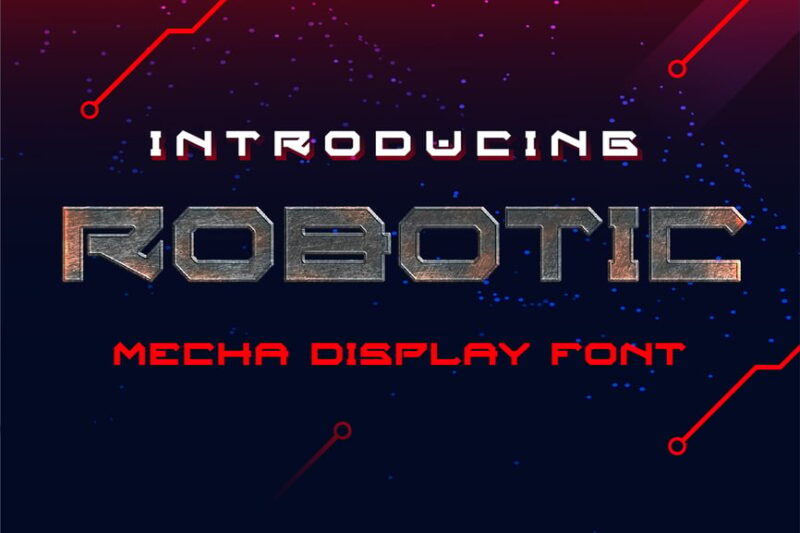
This sans-serif font features a bold, robotic aesthetic perfect for futuristic and tech-oriented designs. Its sharp edges and mechanical structure make it ideal for headlines and logos in sci-fi or technology-themed projects.
Robonauts
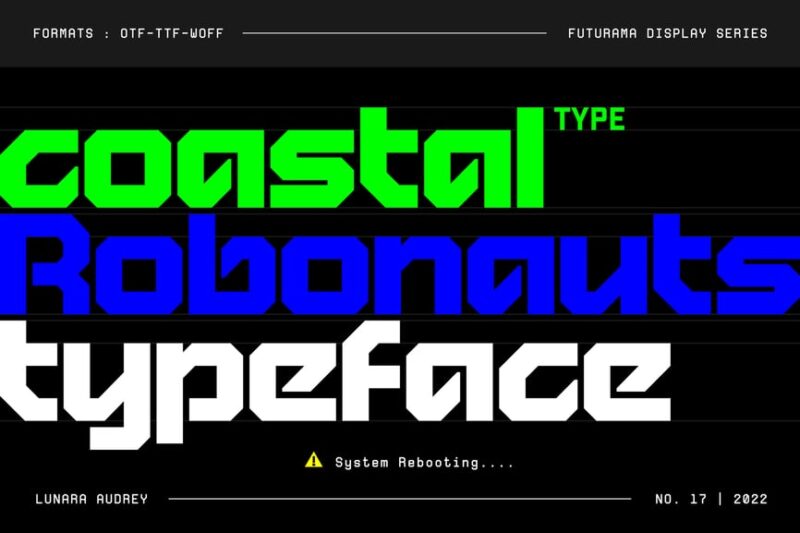
Robonauts is a decorative font that blends cyberpunk and synthwave styles. Its retro-futuristic look makes it perfect for creating eye-catching titles and designs in music, gaming, or any project aiming for a nostalgic yet futuristic feel.
Microbots – Futuristic Font
This decorative font embodies modern technology and futuristic themes. Its intricate, pixelated design makes it suitable for tech companies, science fiction projects, or any design requiring a cutting-edge, high-tech appearance.
Robot Line – Futuristic Tech Font
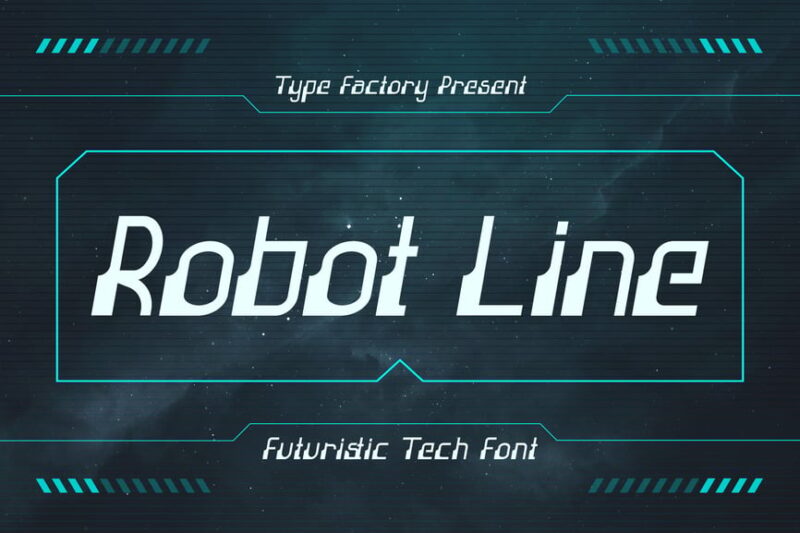
Robot Line is a decorative font that combines futuristic elements with a tech-inspired design. Its clean lines and geometric shapes make it ideal for logos, headlines, and branding in the technology and innovation sectors.
Robo City Mecha Display Font
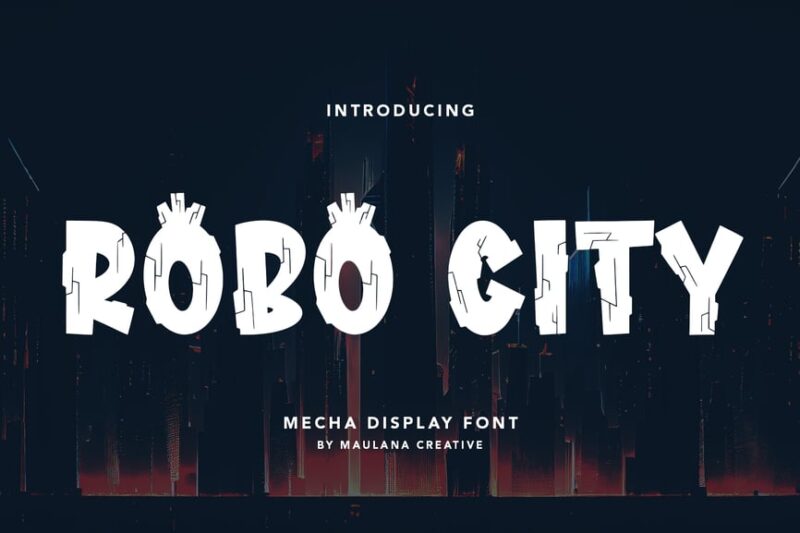
This decorative font showcases a modern, mecha-inspired design. Its playful characters are perfect for creating impactful headlines in futuristic-themed projects, video games, or tech-oriented designs.
TF-Robotic
TF-Robotic is a sans-serif font with a decorative twist, inspired by speed and automotive design. Its sleek, dynamic appearance makes it suitable for racing-themed projects, sports branding, or any design requiring a sense of motion and energy.
Robox
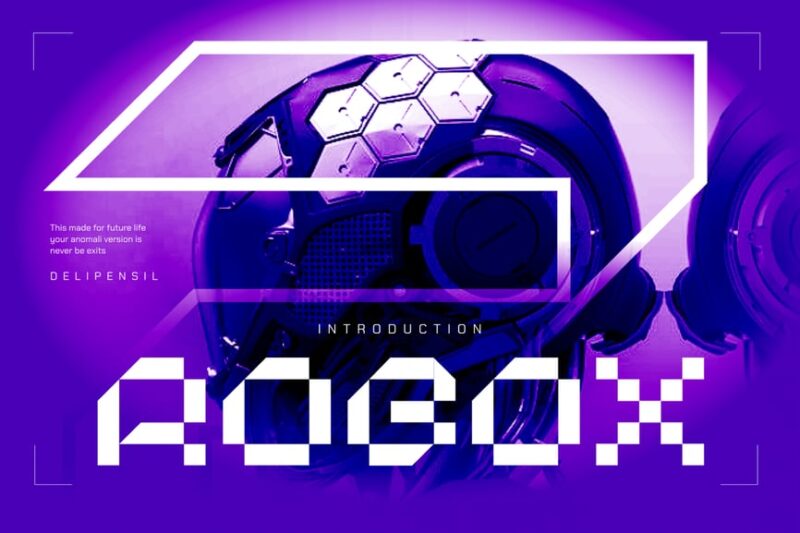
Robox is a serif font that incorporates cyberpunk and robotic elements. Its unique blend of traditional serif structure with futuristic details makes it versatile for both body text and headlines in sci-fi or tech-oriented publications.
ROBMAX-36 – Futuristic Cyberpunk Mecha Font
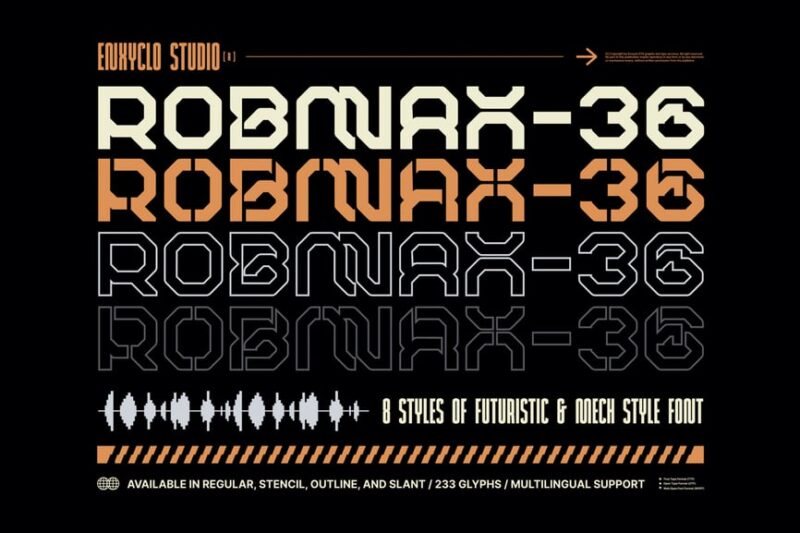
This decorative font combines futuristic cyberpunk aesthetics with a metallic, robotic feel. Its bold, angular design is perfect for creating striking headlines and logos in sci-fi, gaming, or tech-focused projects.
Robo Dale – Cyberpunk Type
Robo Dale is a decorative font that embodies the essence of cyberpunk and digital aesthetics. Its futuristic design with sharp edges and geometric shapes makes it ideal for creating eye-catching titles in tech-oriented or sci-fi themed designs.
Aliens Robot – Modern Techno Font
This decorative font combines alien and robotic elements to create a unique, sci-fi inspired look. Its futuristic design makes it perfect for tech logos, movie posters, or any project requiring a bold, otherworldly appearance.
Roboslice
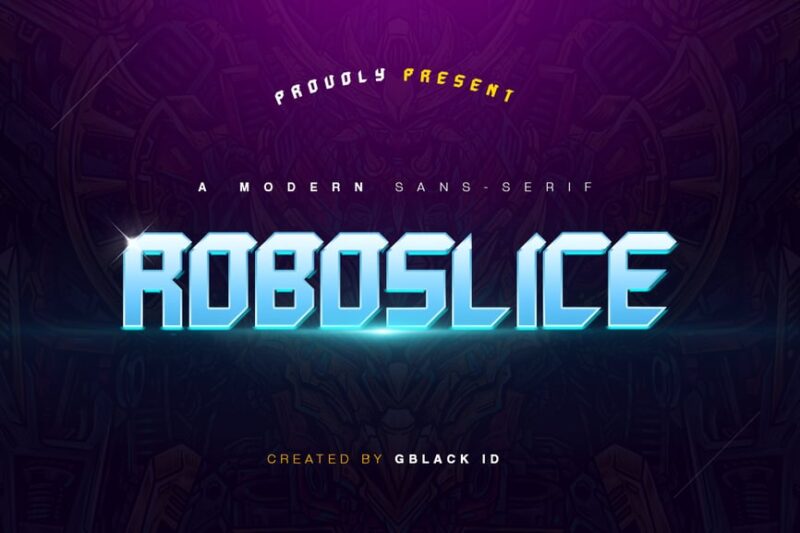
Roboslice is a sans-serif font with a tech-inspired twist. Its clean lines and precise cuts make it ideal for creating modern, sleek logos and headlines in technology-focused designs or futuristic branding projects.
Sandborg – Robotic Display Font
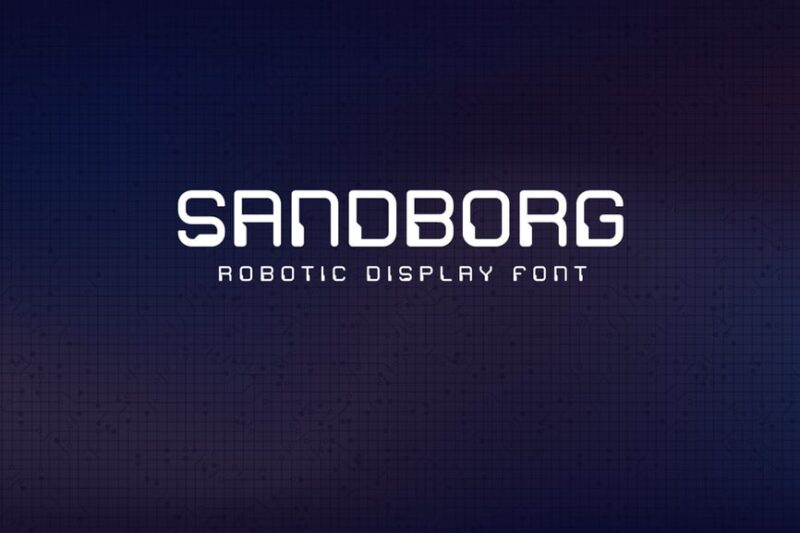
This sans-serif display font features a robotic aesthetic with an electric, tech-inspired design. Its bold science-y characters and unique details make it perfect for creating impactful headlines in sci-fi, technology, or futuristic-themed projects.
Robofor_mechanical engineering font
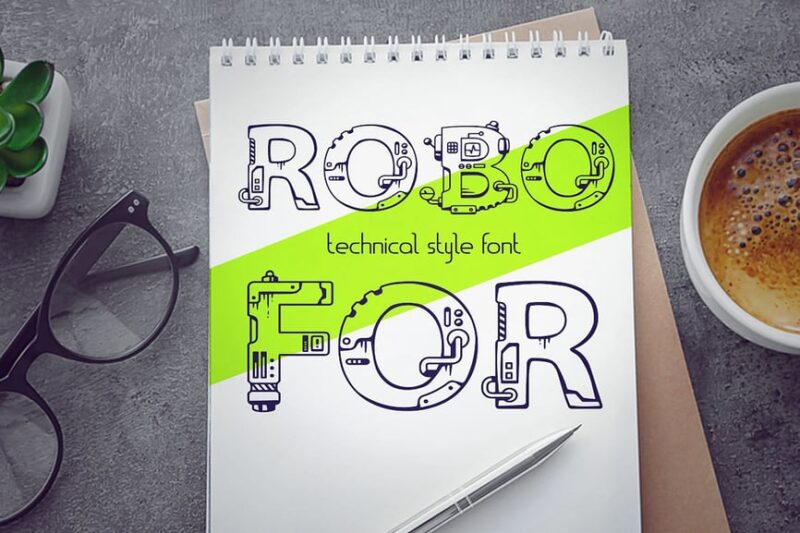
This decorative font is inspired by mechanical engineering and industrial design. Its technical, precise appearance makes it ideal for engineering projects, technical documentation, or any design requiring a strong industrial or technological feel.
Robatec – Techno Futuristic / Sci-fi Game Font
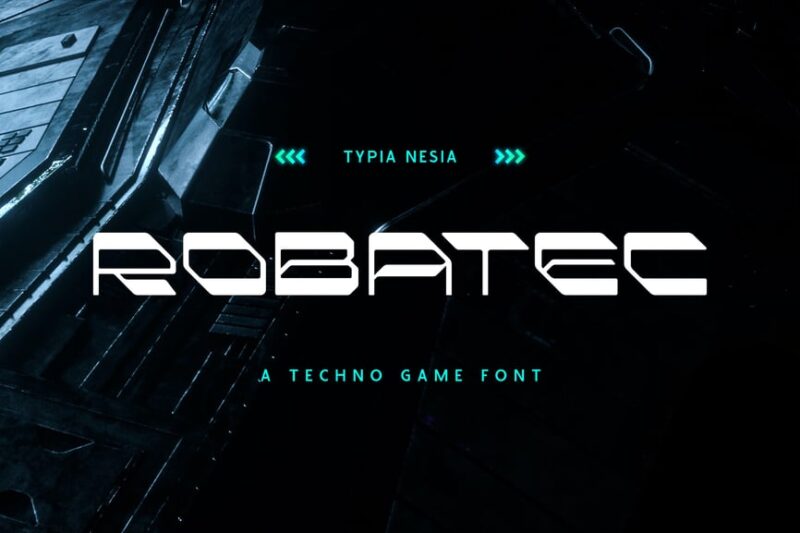
So go ahead, experiment with these mechanical marvels. Your designs might just be the ones that help define what the future looks like. After all, in a world where robots are becoming increasingly common, shouldn’t our typography keep up?
Remember, great design isn’t just about following trends – it’s about finding the perfect visual language to tell your story. And sometimes, that story needs a robot font to tell it properly.